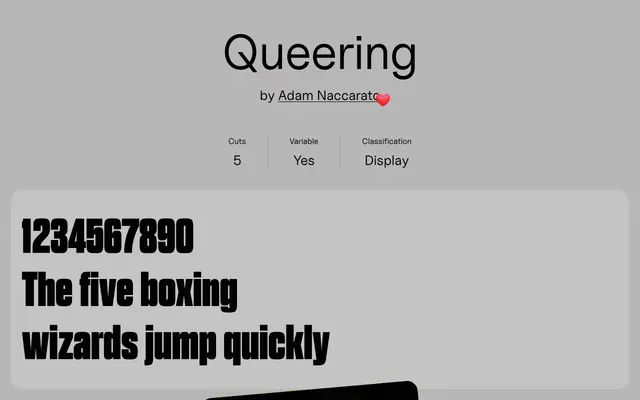
Queering
A free, variable display typeface by Adam Naccarato, released under the SIL Open Font Licence with five cuts for headline and expressive use.
Queering is a display typeface by Adam Naccarato, available in five cuts including a variable version. Released under the SIL Open Font Licence 1.1, it is free for both commercial and personal projects, with standard rules applying to modification and redistribution. Its positioning as a display face suggests it is suited to expressive, large-scale typographic contexts.
The foundry classifies this as Display; the name and variable nature suggest an expressive, experimental typeface intended for headline use rather than running text.